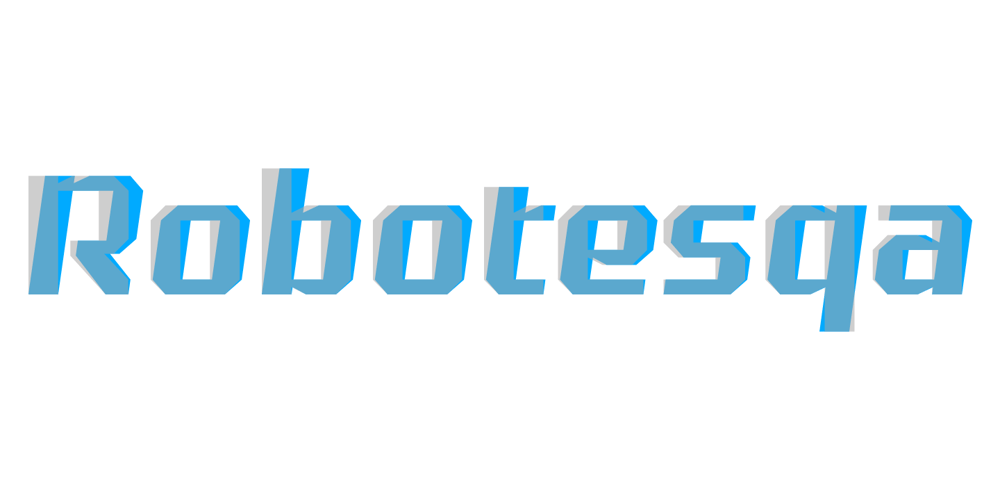
Robotesqa 4F Font Family was designed by Sergiy Tkachenko and published by 4th february. Robotesqa 4F contains 16 styles and family package options. The idea of creating the Robotesqa 4F font came in 2010 following the design of a desktop computer game (unpublished) typeface which displayed various statistical information onscreen about passing game levels. All the basic Latin and Cyrillic glyphs were created in 2010, and at the end of 2013 more glyphs (including arrows, geometrical shapes, etc.) and skillfully crafted stylistic alternates were added.